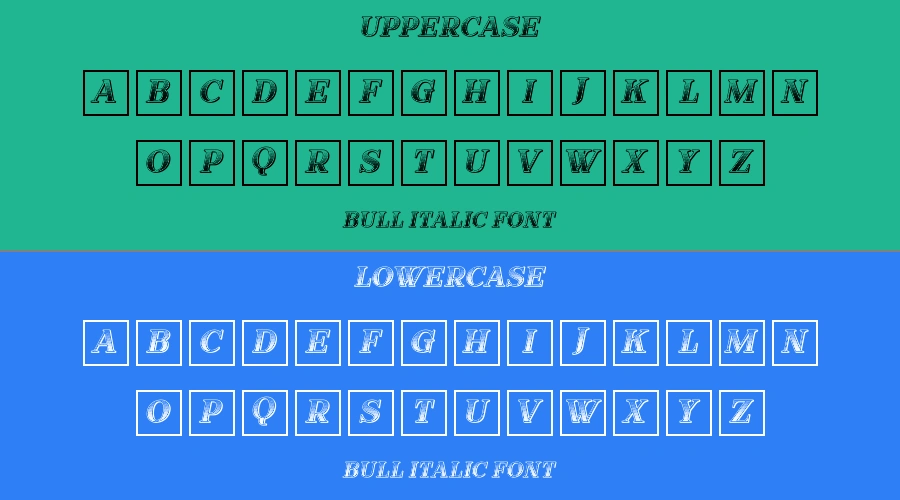
About Bull Italic Font
When typographic excellence matters most, Bull Italic Font delivers through its thoughtful blend of playful elements and originality. Specially crafted for medical writing, it offers the integrity and technical precision required for sophisticated design work. Every detail serves a purpose.
The character set showcases thoughtful details like humanist proportions alongside functional tabular figures. This proves especially valuable in hero imagery, where format conversion directly influences results. Particular attention was paid to proportion and personality during development.